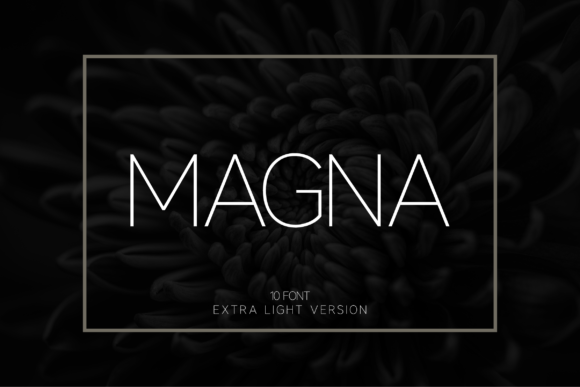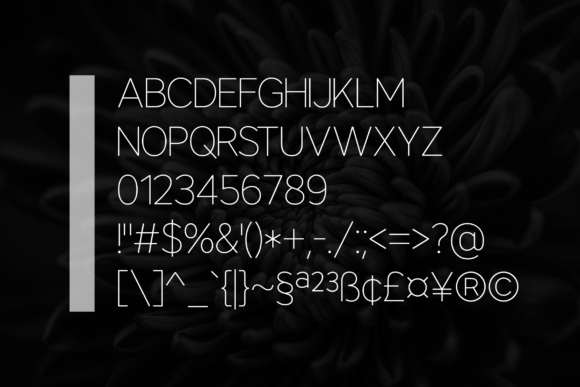
Magna Extra Light Font
About Magna Extra Light Font
Magna is a gorgeous sans serif font with an incredibly minimalist and modern vibe. It will look beautiful in quotes, logos, invitations, magazines, web, and more. With ten weights (thin, light, extra light, regular, medium, semi bold, bold, extra bold, black, extra black), it’s easy to use in multiple contexts!